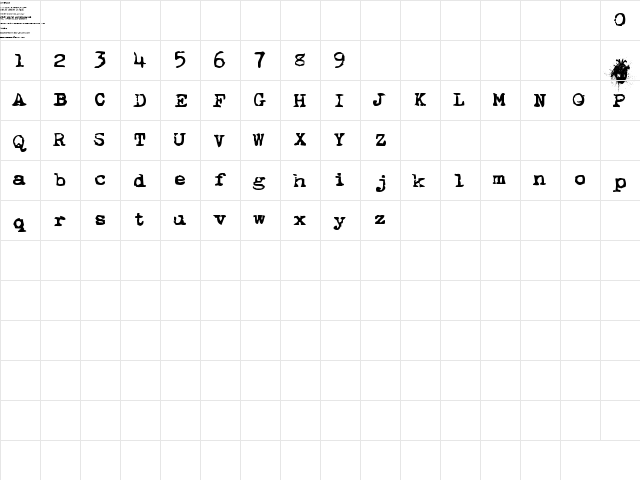
Blasphemous Rumors Regular
Design Context for Blasphemous Rumors Typeface
Blasphemous Rumors takes a measured approach to typography — its balanced proportions and neutral character make it a reliable workhorse for both digital and print work.